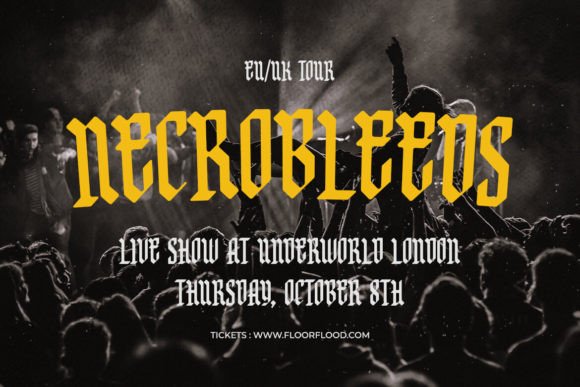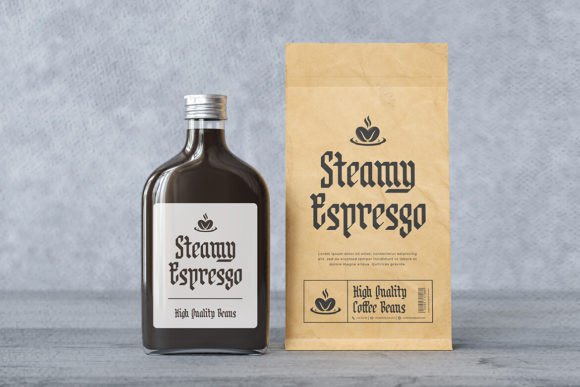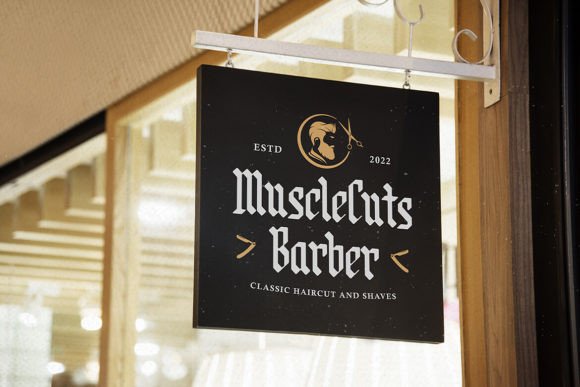
Introduction to Negativo Font
Have you ever been stuck on a design project, scrolling through font options, and suddenly, you stumble upon that one typeface that makes everything click into place? For many designers, this is the moment when inspiration strikes and creativity flows. It’s that ‘aha’ moment when you know you’ve found the perfect design resource – a font that not only reflects your brand’s personality but also elevates your entire visual identity.
Enter the Negativo Font, a modern blackletter typeface that’s set to revolutionize the way you design. With its bold and distinctive style, this font is the perfect blend of tradition and modernity, making it an ideal choice for designers looking to create high-quality designs that exude strength and sophistication. Whether you’re working on a creative project for fashion, music, or luxury sectors, the Negativo Font is sure to make a powerful statement.
But what makes the Negativo Font truly valuable for designers is its versatility. You can easily pair it with a transparent background or use it on its own to create a striking visual effect. And the best part? It’s available for free download, making it an accessible design resource for designers of all levels. So, what are you waiting for? Discover the Negativo Font today and take your designs to the next level!
Key Features of Negativo Font
- High-quality design resource with a unique, futuristic aesthetic
- Unique characteristics include bold lines, geometric shapes, and a modern feel, perfect for making a statement in designs
- Designed to be versatile, suitable for use in logos, titles, headings, and body text in various creative projects
Honest Review: Negativo Font
As a designer, I’m always on the lookout for high-quality design resources that can elevate my creative projects. Recently, I had the chance to work with the Negativo Font, and I’m excited to share my honest review with you.
- ✨ High-quality design: The Negativo Font has a unique, modern aesthetic that’s perfect for a variety of creative projects, from branding to digital design.
- ✨ Transparent background: The font’s transparent background makes it easy to use as a design element in complex compositions.
- ⚠️ Limited font styles: While the Negativo Font is beautiful, it’s a single font style, which may limit its versatility in certain projects.
- ⚠️ Limited language support: The font may not support all languages, which could be a limitation for designers working on global projects.
Overall, I’m impressed with the Negativo Font, and I think it’s a great addition to any designer’s toolkit. While it may have some limitations, its unique design and high-quality feel make it a valuable resource for creative projects.
Tips for Getting the Most Out of Negativo Font
Use Negativo Font on a transparent background to create a unique and eye-catching design.
Combine Negativo Font with other high-quality design resources for a cohesive look.
Negativo Font is perfect for creative projects that require a bold and eye-catching font.
Use it for social media graphics, flyers, posters, or any other design project that needs a statement-making font.